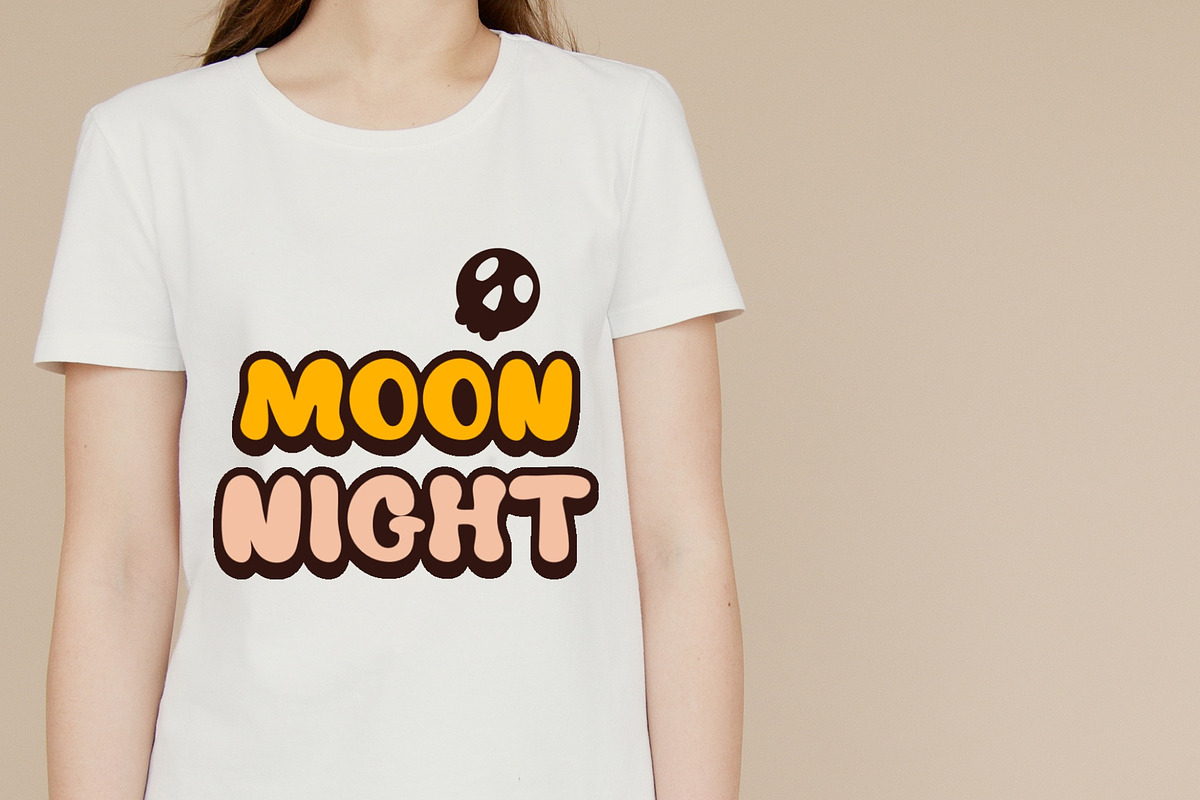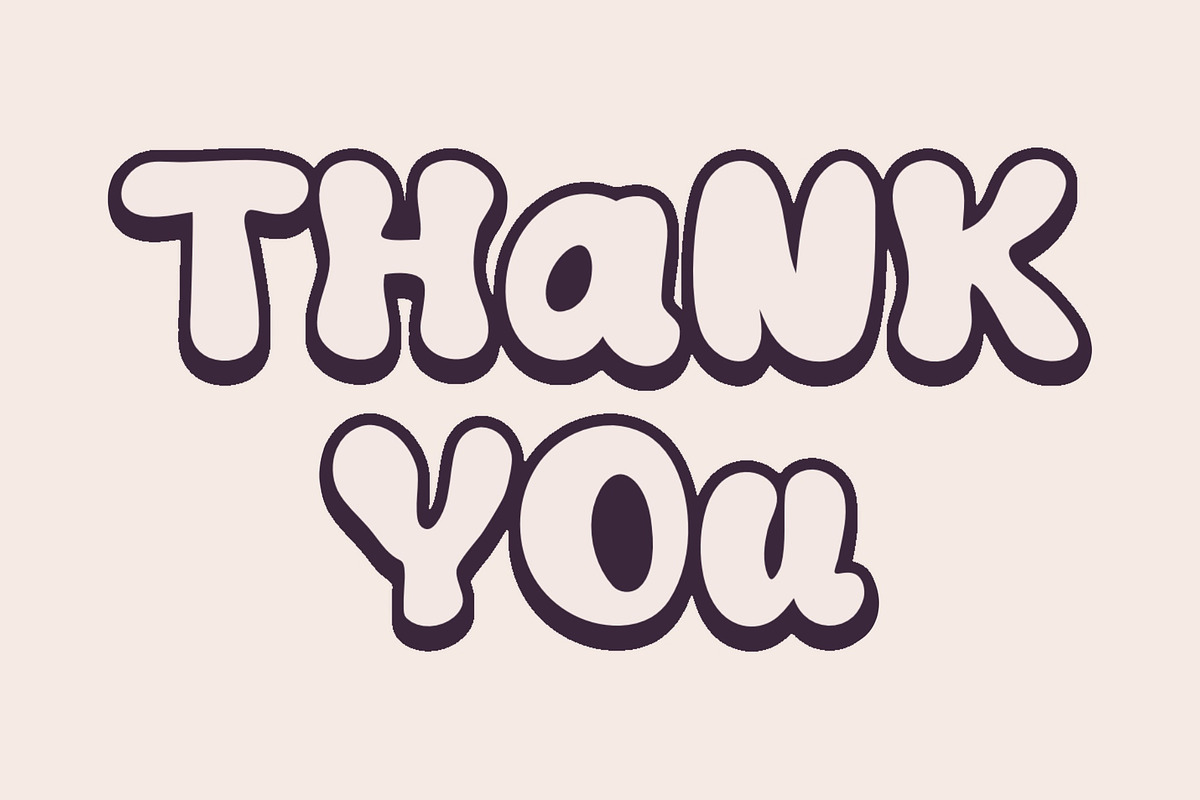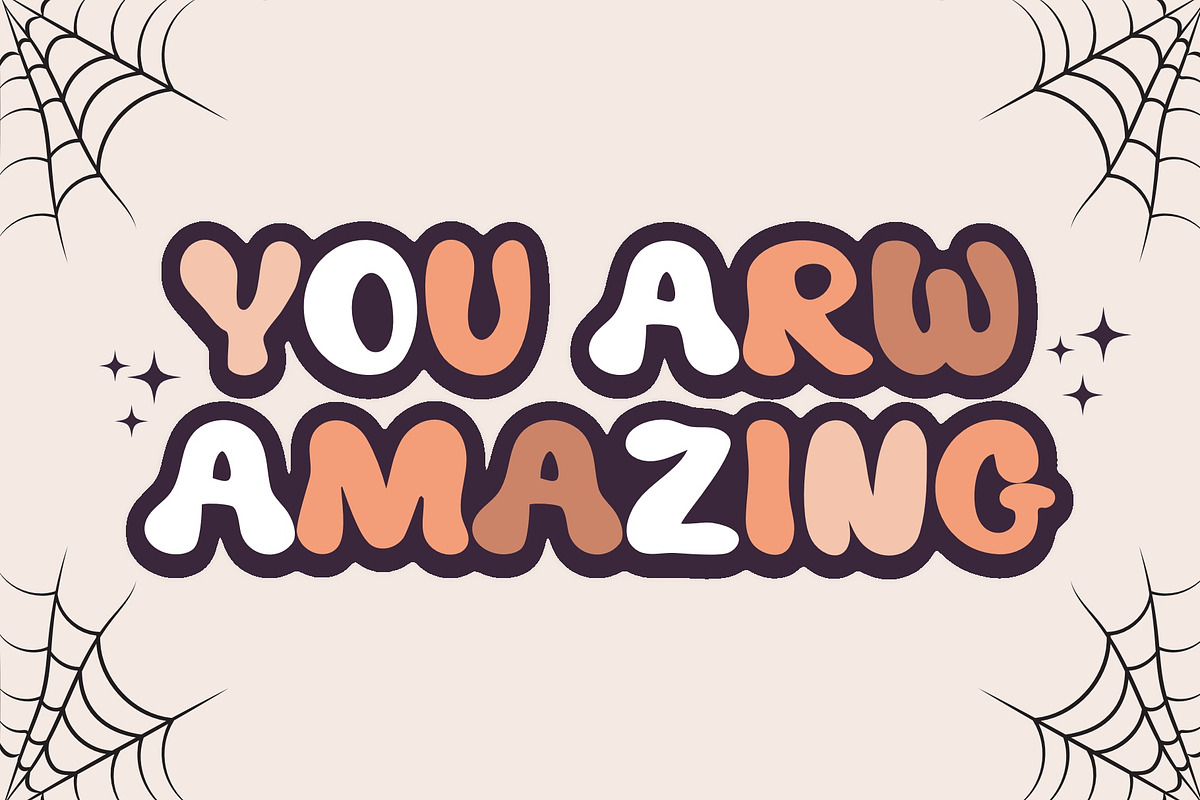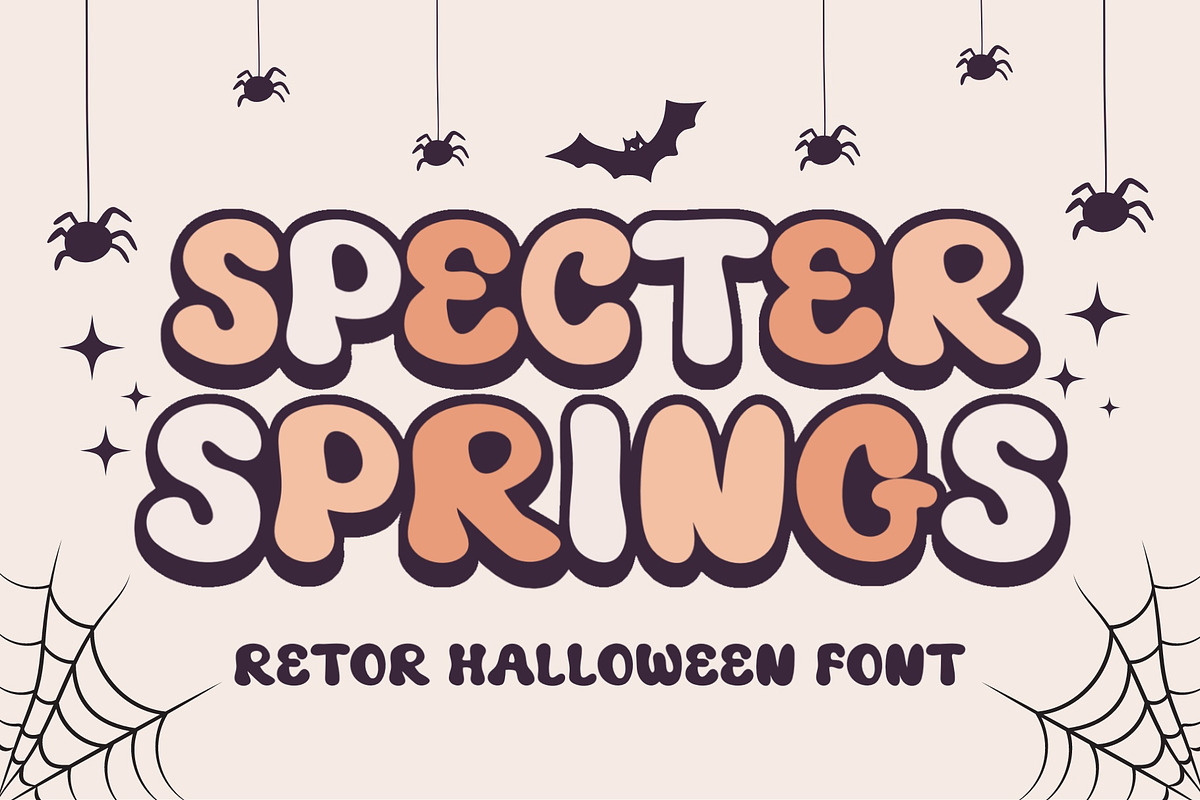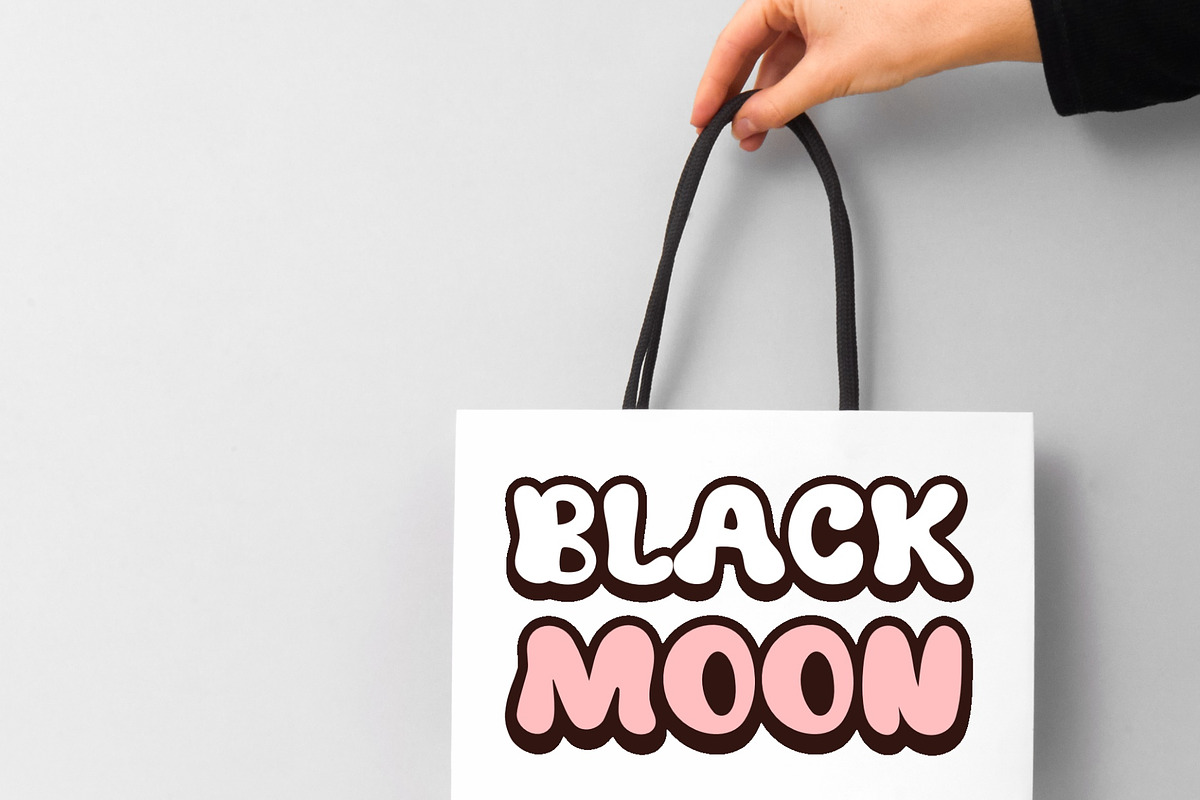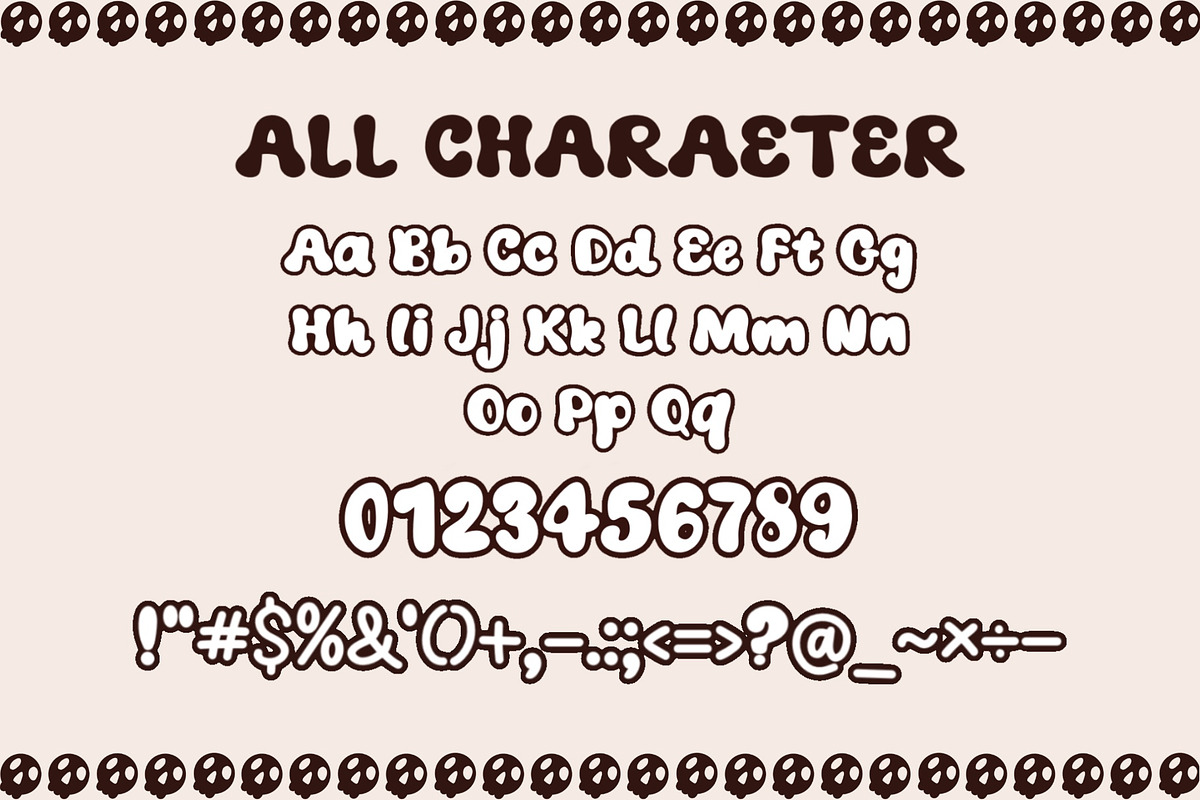
SPECTER SPRINGS Font
With its mystical and enchanting letterforms, the SPECTER SPRINGS font is perfect for adding a touch of magic and mystery to your creative projects. Whether you’re designing fantasy book covers, crafting hauntingly beautiful logos, or creating captivating posters, this font will transport your audience to a world of wonder.